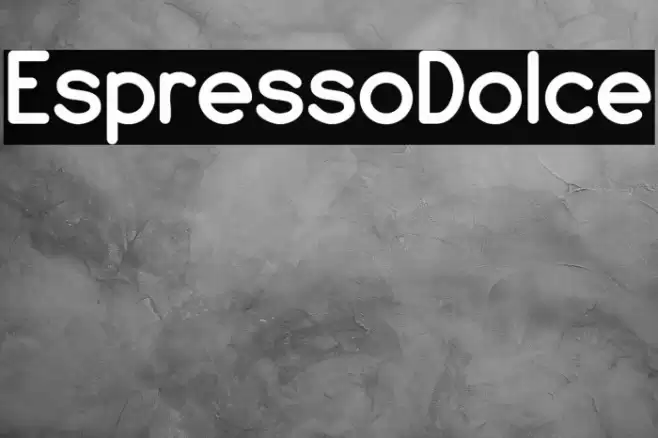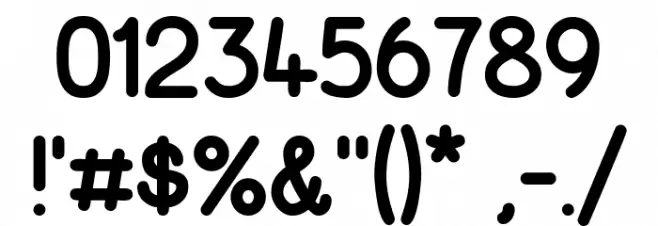
EspressoDolce Font
EspressoDolce Description
This font features a playful and rounded design, characterized by its smooth curves and uniform stroke width. The letters are well-proportioned, with a consistent height and width that gives a balanced appearance. The rounded edges and lack of sharp angles contribute to a friendly and approachable feel, making it suitable for casual and informal contexts. The numerals and special characters maintain the same rounded style, ensuring visual harmony across all elements. This font is versatile and can be used in various design projects where a modern yet relaxed aesthetic is desired.
A playful, rounded font with smooth curves and uniform stroke width from Uncategorized fonts.
- Proposed Projects: Ideal for children's books, playful branding, casual invitations, and friendly digital interfaces.
- Use Case: Headlines, Logos, Digital Interfaces